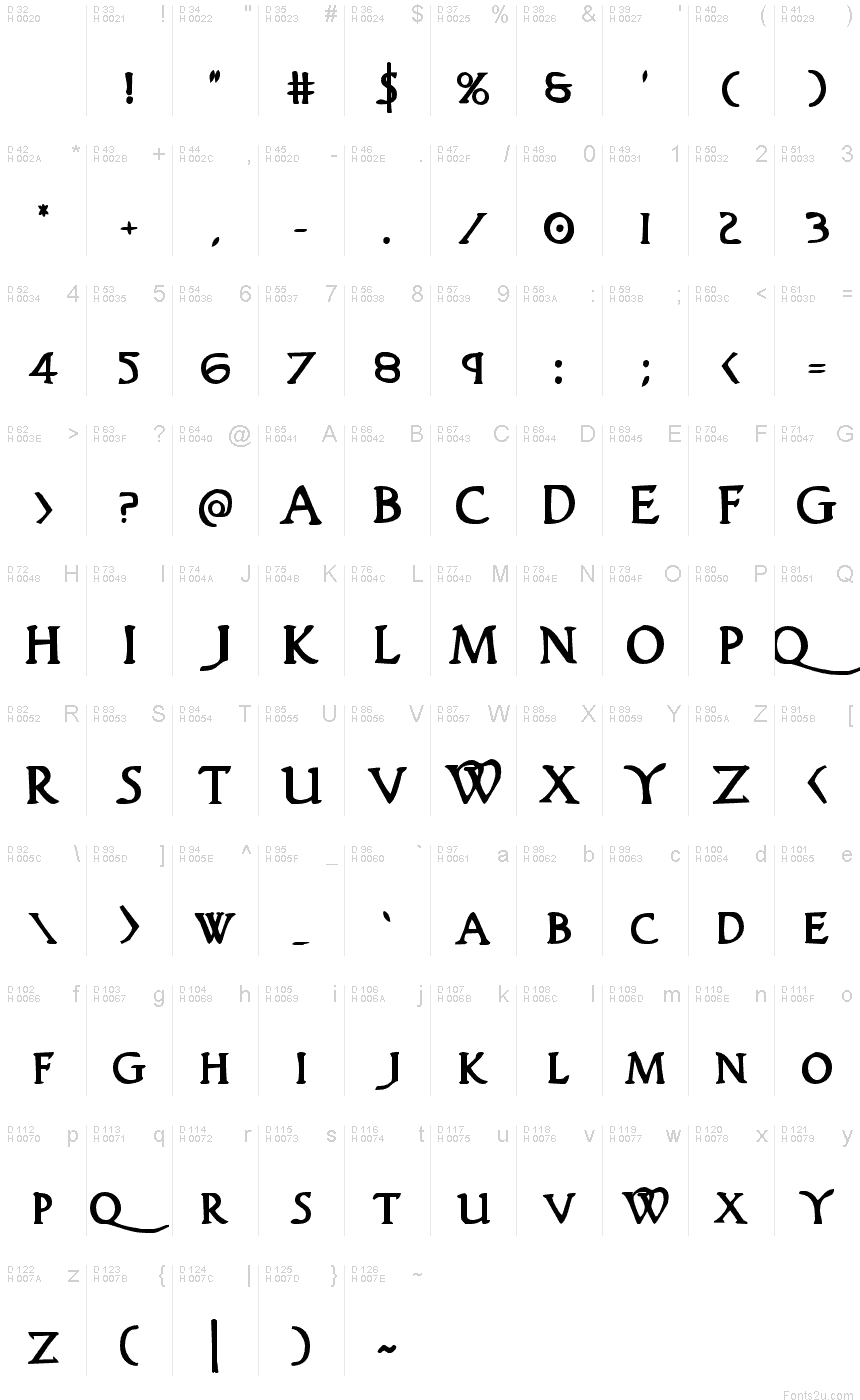
Woodgod Bold by Iconian Fonts is a free old-school display font with the rough authority of carved lettering. Its broad, uneven capitals combine sweeping curves, sharp wedge-like serifs, and abrupt cuts that make the alphabet look hand-hewn rather than formally drawn.
Folklore, woodland legends, and historical adventure give this lettering its most convincing setting, especially in book covers, game titles, and festival posters. The thorny contours also suit craft-beer packaging, where leaves, timber textures, or heraldic illustrations can extend the same carved motif beyond the words.